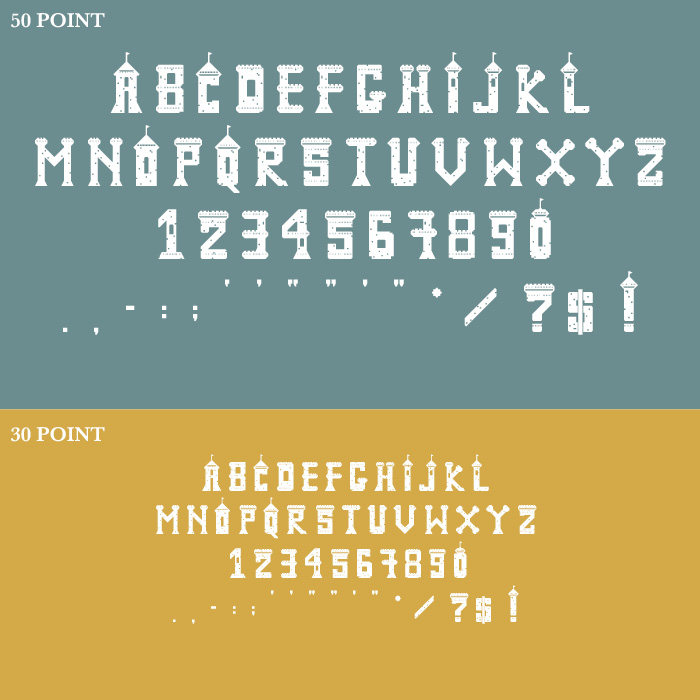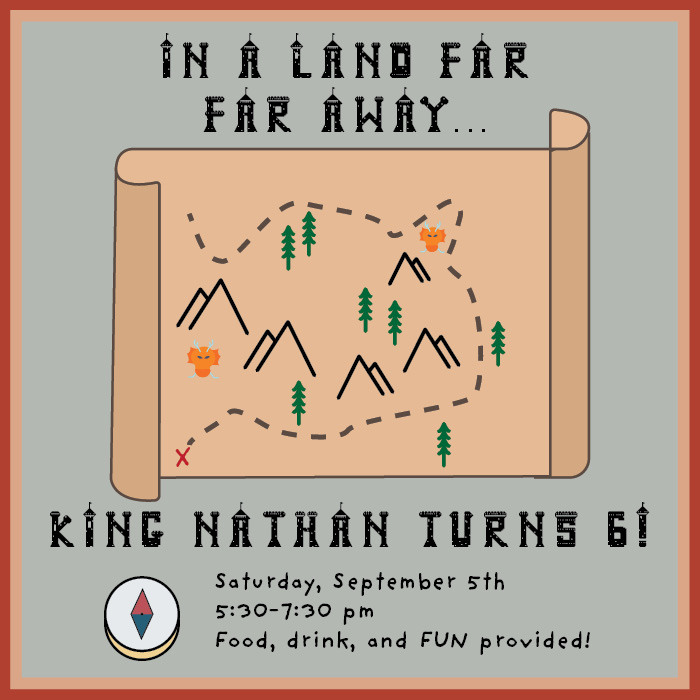
• This is a slab serif font that is meant to resemble the artchitecture of a castle from far away lands. With a worn effect to the characters and small embellishments like flags, windows, and lookouts, this font is meant for kings and queens from all lands. This font is best suited as a display type.